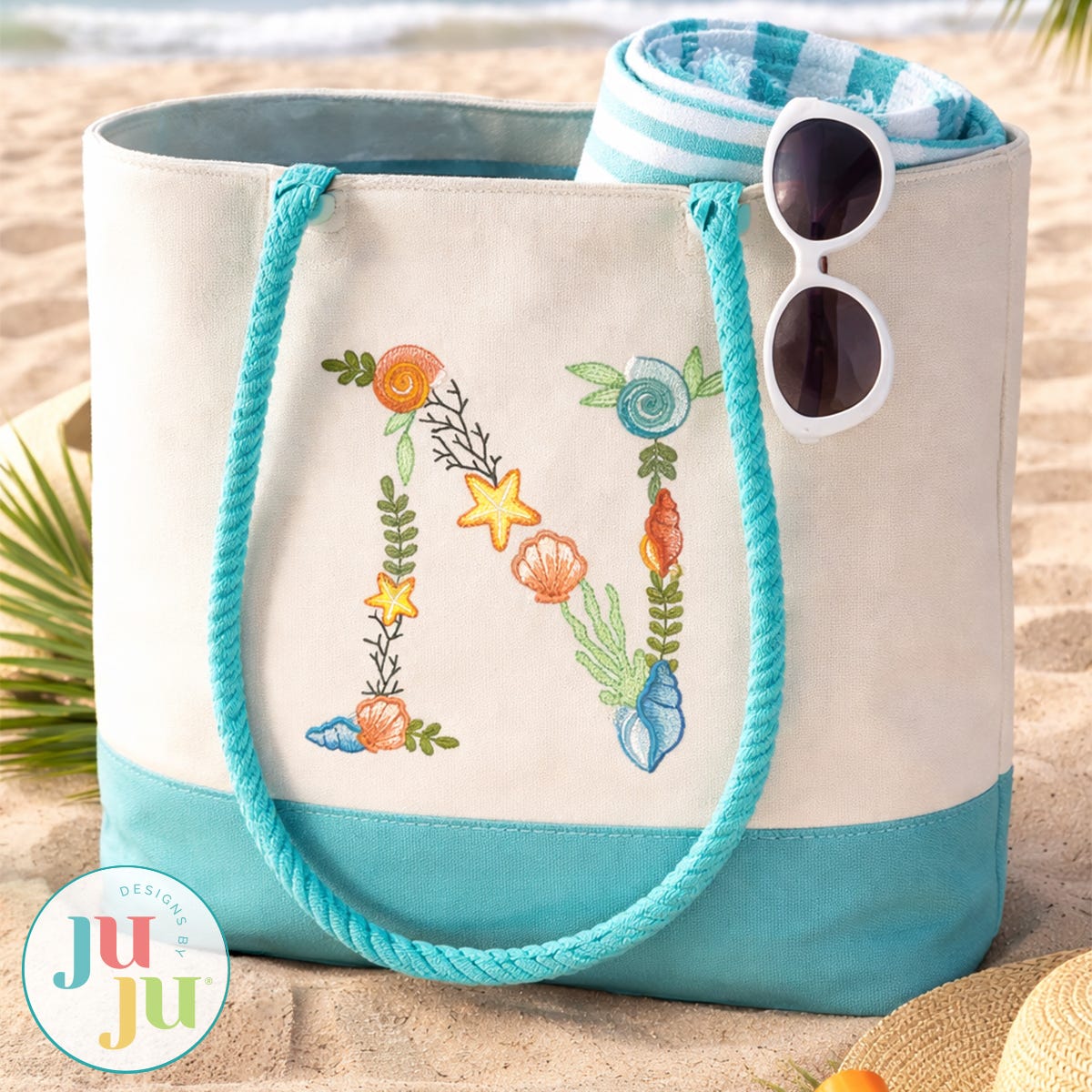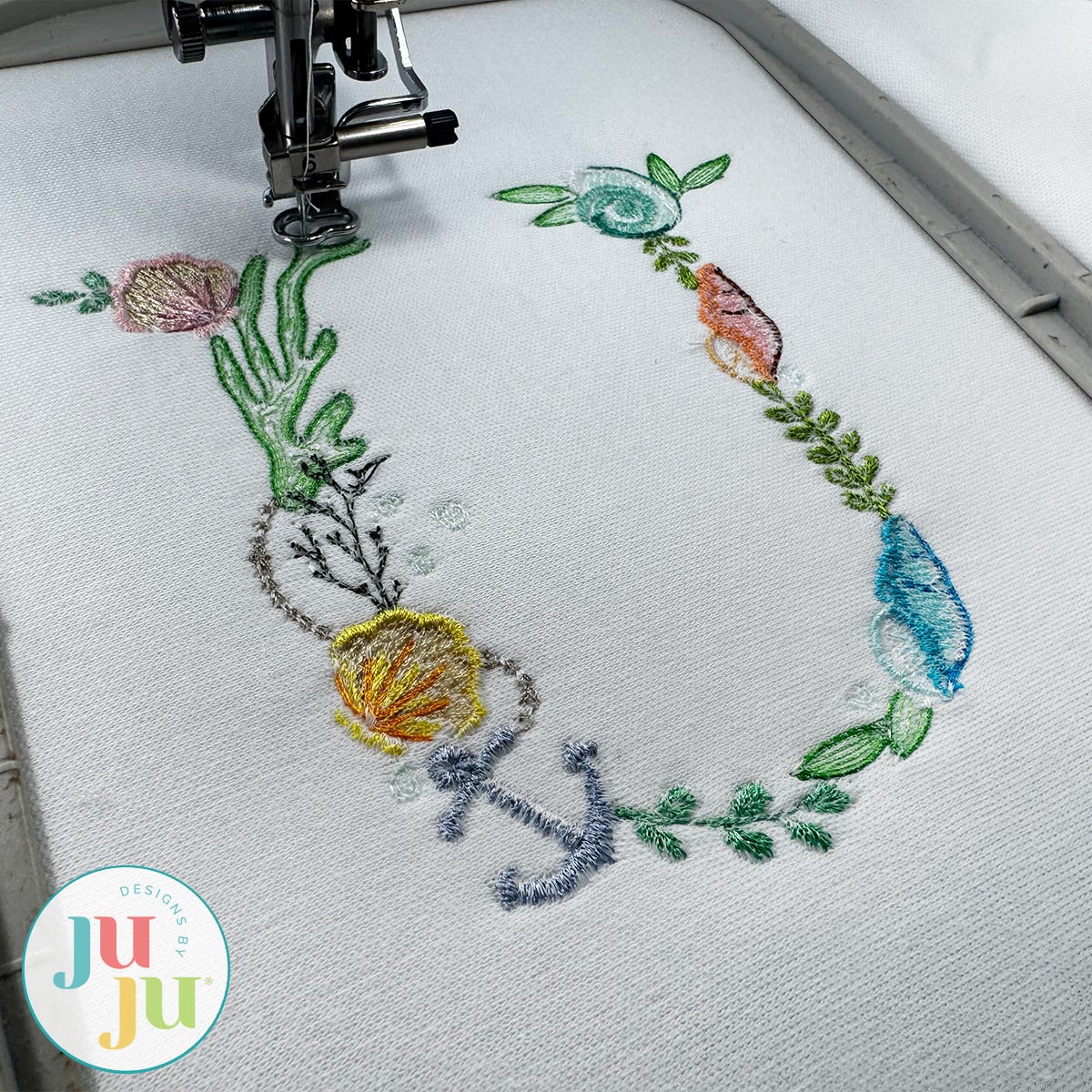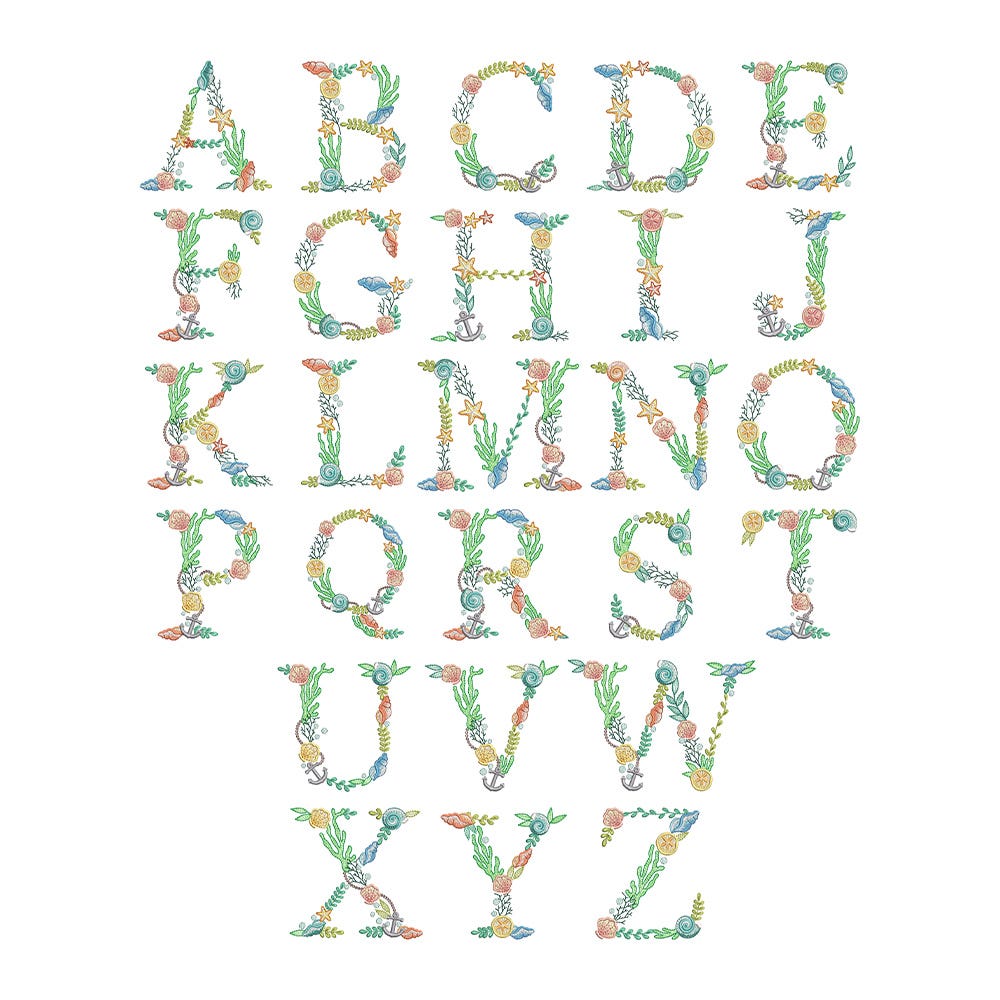
Nautical Sea Fill Stitch Monogram Embroidery Font
Dive into beautiful stitching with our embroidery-only Nautical Sea Monogram!
The letters are composed of seashells, sand dollars, starfish, sea grass and other decorative sea-themed accents as shown. A variety of embroidery stitch types are used, including sketch fill elements. The space between each line of stitching varies such that it is more dense on one side of the shape than the other to create the shading effect. We do NOT recommend resizing designs with sketch elements in software.
All of our monograms are 100% manually digitized to bring you maximum stitch quality.